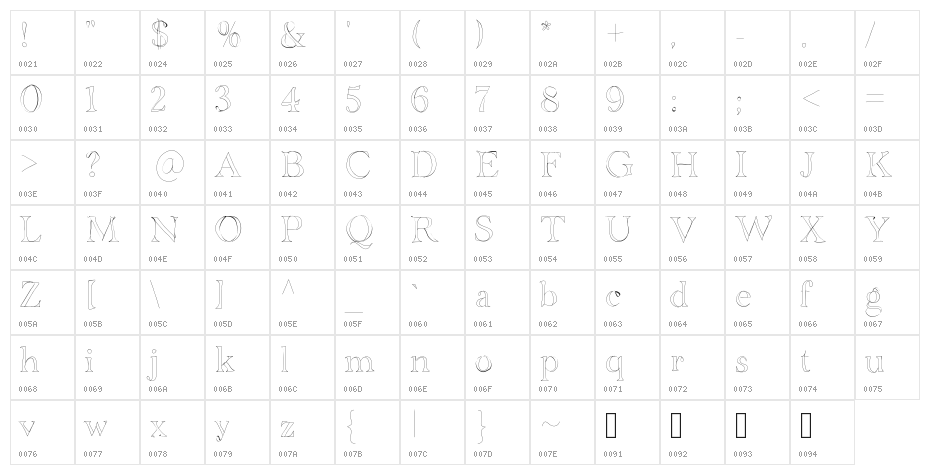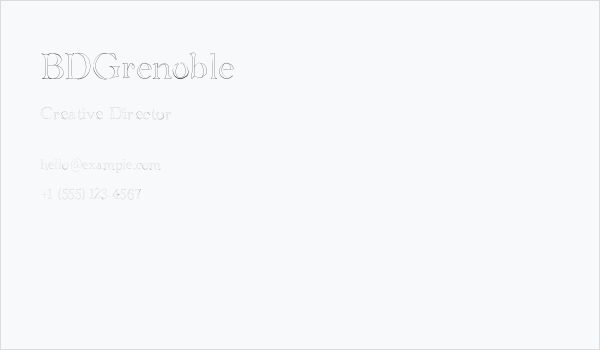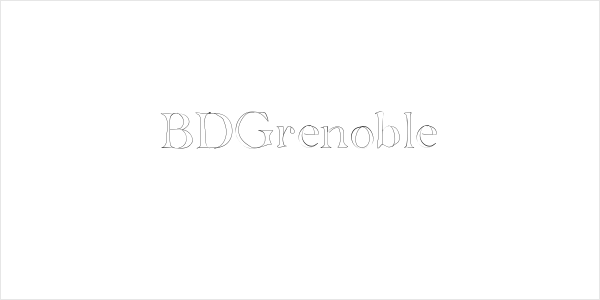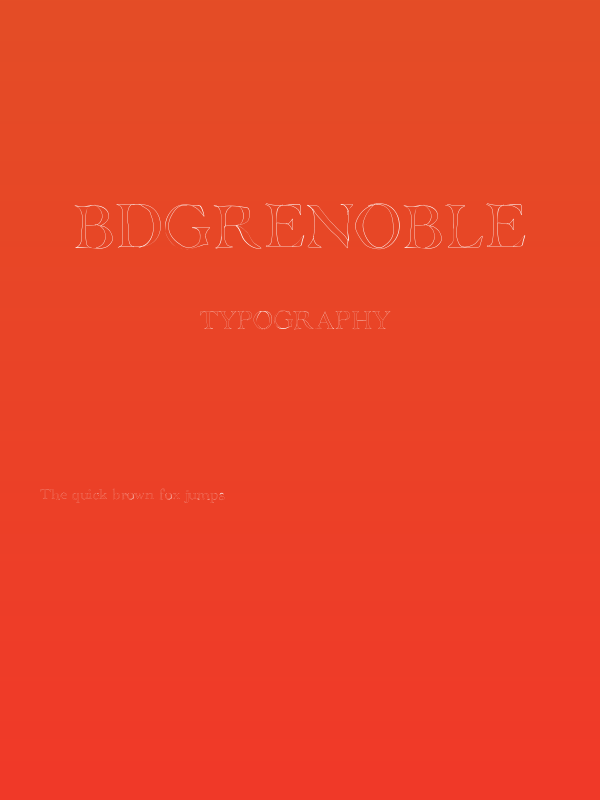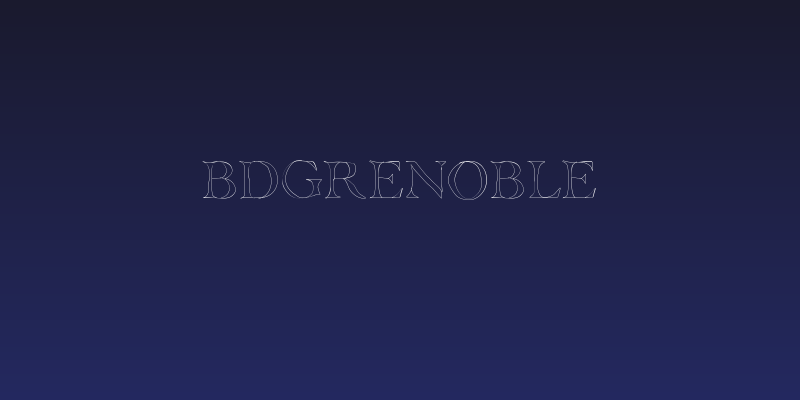
BDGrenoble Font
BDGrenoble Description
This font exhibits a classic serif style with a modern twist, characterized by its elegant and refined letterforms. The uppercase letters are bold and commanding, with distinct serifs that add a touch of sophistication. The lowercase letters maintain a consistent style, offering a harmonious balance between the uppercase and lowercase alphabets. The numerals are clear and legible, designed to complement the overall aesthetic of the font. Special characters are thoughtfully crafted, ensuring versatility in various design contexts. The font's clean lines and precise curves make it suitable for a wide range of applications, from formal documents to creative projects.